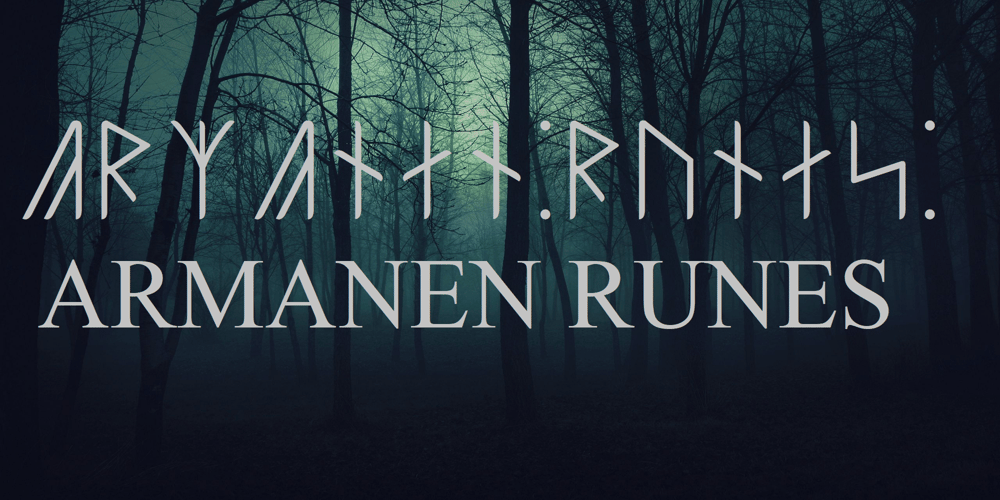
Ongunkan Armanen Runes Font Family was designed by Osman Nuri ALKAN and published by Runic World Tamgacı. Ongunkan Armanen Runes contains 1 styles and family package options. The Armanen runes (or Armanen Futharkh) are a series of 18 runes, closely based on the historical Younger Futhark, introduced by Austrian mysticist and Germanic revivalist Guido von List in his Das Geheimnis der Runen (English: “The Secret of the Runes”), published as a periodical article in 1906, and as a standalone publication in 1908. The name Armanen runes associates the runes with the postulated Armanen, whom von List saw as ancient Aryan priest-kings.The Armanen runes continue in use today in esotericism and in currents of Germanic neopaganism.